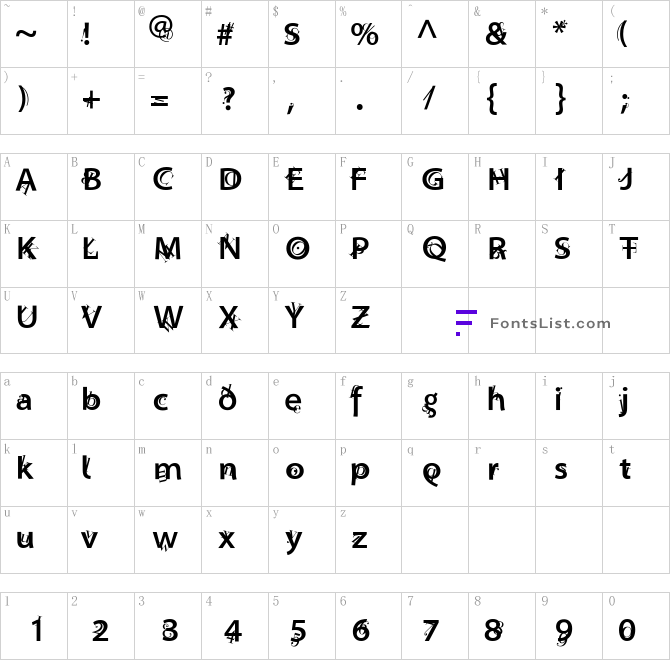
- Font Name:AIFusion
AIFusion.ttf is a very beautiful artistic font, AIFusion.ttf is widely used in the design and printing of various books and pictures,AIFusion.ttf has a strong visual impact,AIFusion.ttf is a commonly used font in newspapers, magazines and books, and is used in posters, e-commerce Poster design, store design, logo design, font design and other fields.AIFusion.